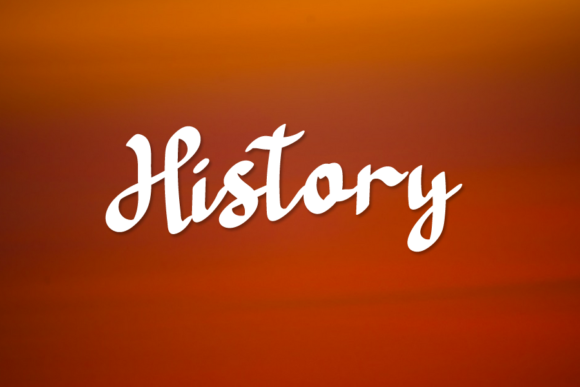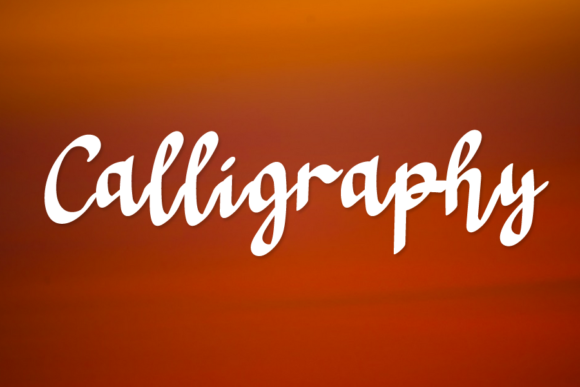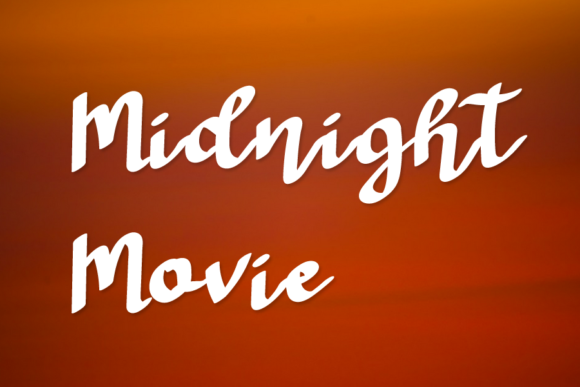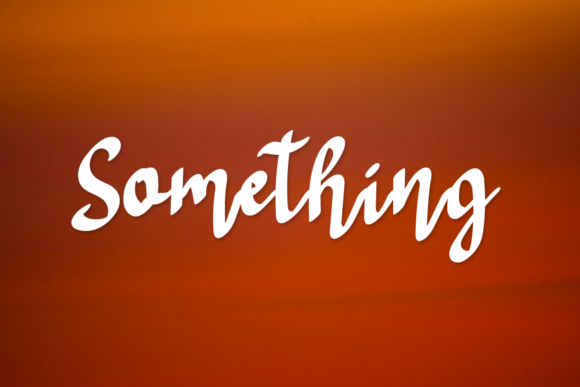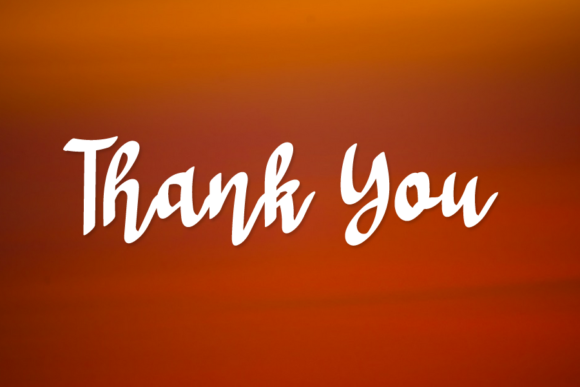
Introducing Hand Made: A Romantic and Sweet Calligraphy Typeface
Are you a designer or crafter looking for a unique and luxurious font to add a touch of elegance to your design projects? Look no further than Hand Made, a romantic and sweet calligraphy typeface that is sure to capture the hearts of your audience. With its whimsical and dancing characters, Hand Made is the perfect addition to any design project that requires a touch of sophistication and charm.
What is Hand Made Font?
Hand Made is a beautifully crafted calligraphy typeface that features characters that dance along the baseline, creating a sense of movement and fluidity. This font is perfect for designers and crafters who want to add a touch of luxury and romance to their designs. Whether you’re working on a wedding invitation, a branding project, or a packaging design, Hand Made is sure to add a touch of elegance and sophistication.
Key Features of Hand Made Font
- Romantic and Sweet: Hand Made is a romantic and sweet calligraphy typeface that is perfect for designers and crafters who want to add a touch of elegance and charm to their designs.
- Dancing Characters: The characters in Hand Made dance along the baseline, creating a sense of movement and fluidity that adds visual interest to any design.
- Luxury Spark: Hand Made is designed to add a luxury spark to any design project, making it perfect for high-end branding, wedding invitations, and packaging designs.
- Versatile: Hand Made is a versatile font that can be used in a variety of design projects, from digital designs to print materials.
Why Use Hand Made Font?
There are many reasons why designers and crafters should consider using Hand Made font in their design projects. Here are a few:
- Adds Elegance and Sophistication: Hand Made adds a touch of elegance and sophistication to any design project, making it perfect for high-end branding and luxury designs.
- Creates Visual Interest: The dancing characters in Hand Made create visual interest and add a sense of movement to any design, making it perfect for designs that require a touch of whimsy and playfulness.
- Perfect for Wedding and Event Designs: Hand Made is perfect for wedding invitations, event branding, and other designs that require a touch of romance and elegance.
Tips and Tricks for Using Hand Made Font
Here are a few tips and tricks for using Hand Made font:
- Use it Sparingly: Use Hand Made font sparingly to add a touch of elegance and sophistication to your designs.
- Pair it with Other Fonts: Pair Hand Made font with other fonts to create a unique and visually interesting design.
- Experiment with Colors: Experiment with different colors and textures to add depth and visual interest to your designs.
- Pay Attention to Kerning: Pay attention to kerning and adjust the spacing between characters to ensure that your text is easy to read.
In conclusion, Hand Made font is a romantic and sweet calligraphy typeface that is perfect for designers and crafters who want to add a touch of elegance and sophistication to their designs. With its dancing characters and luxurious feel, Hand Made is sure to capture the hearts of your audience and add a touch of whimsy and playfulness to any design project. So why not give Hand Made font a try and see the magic for yourself?